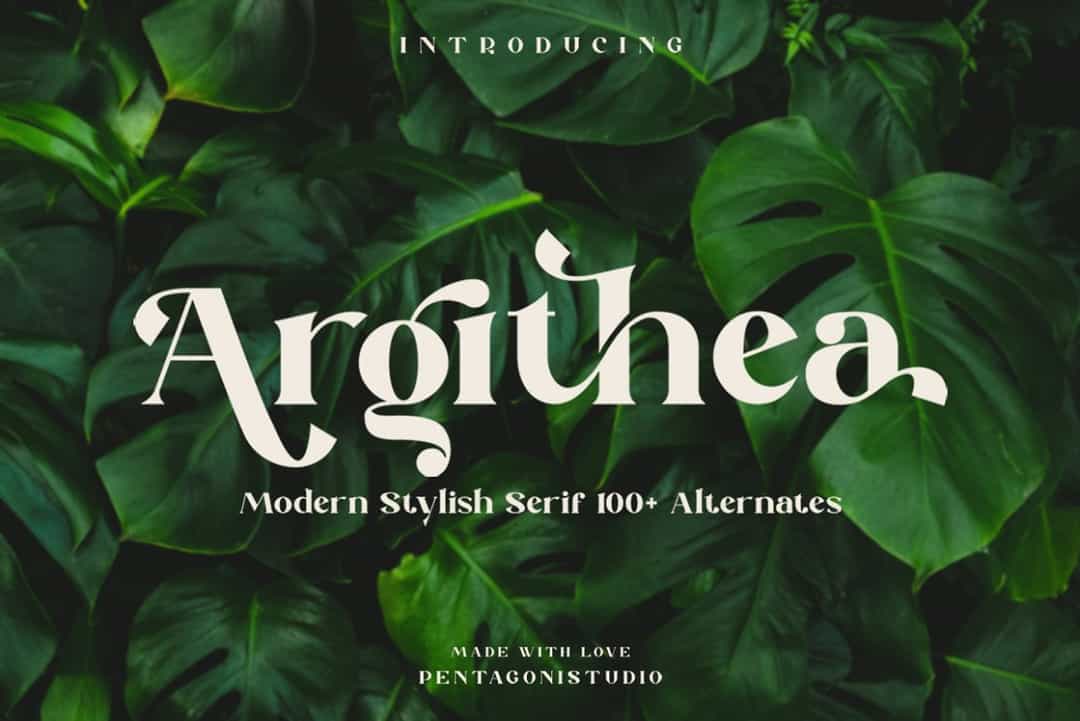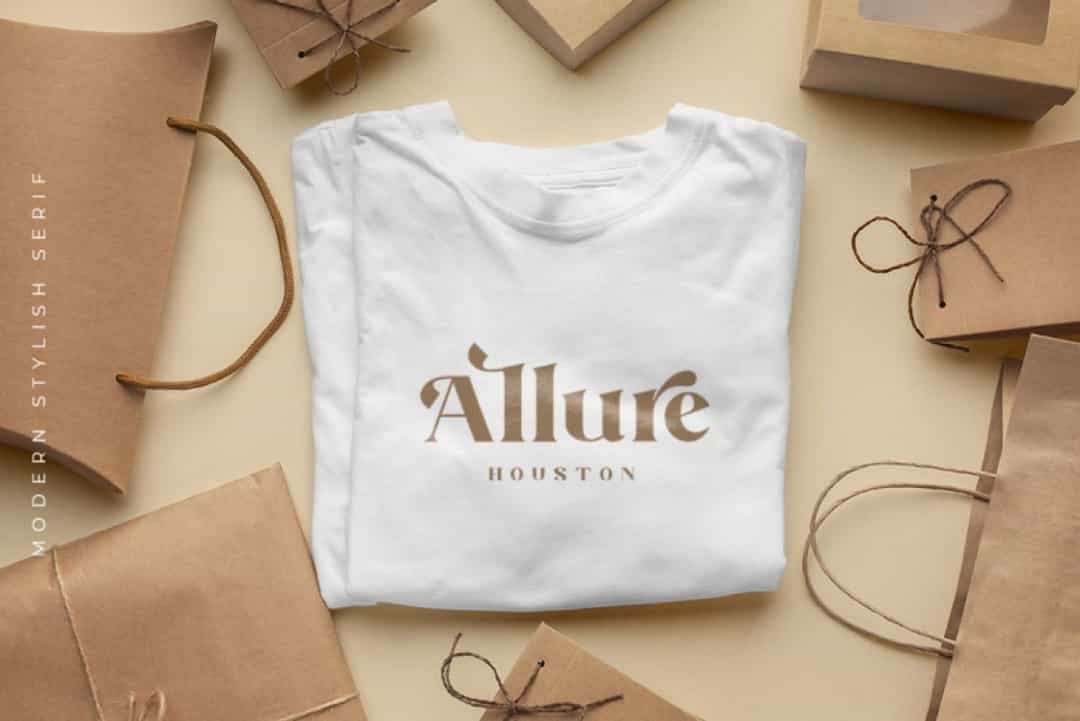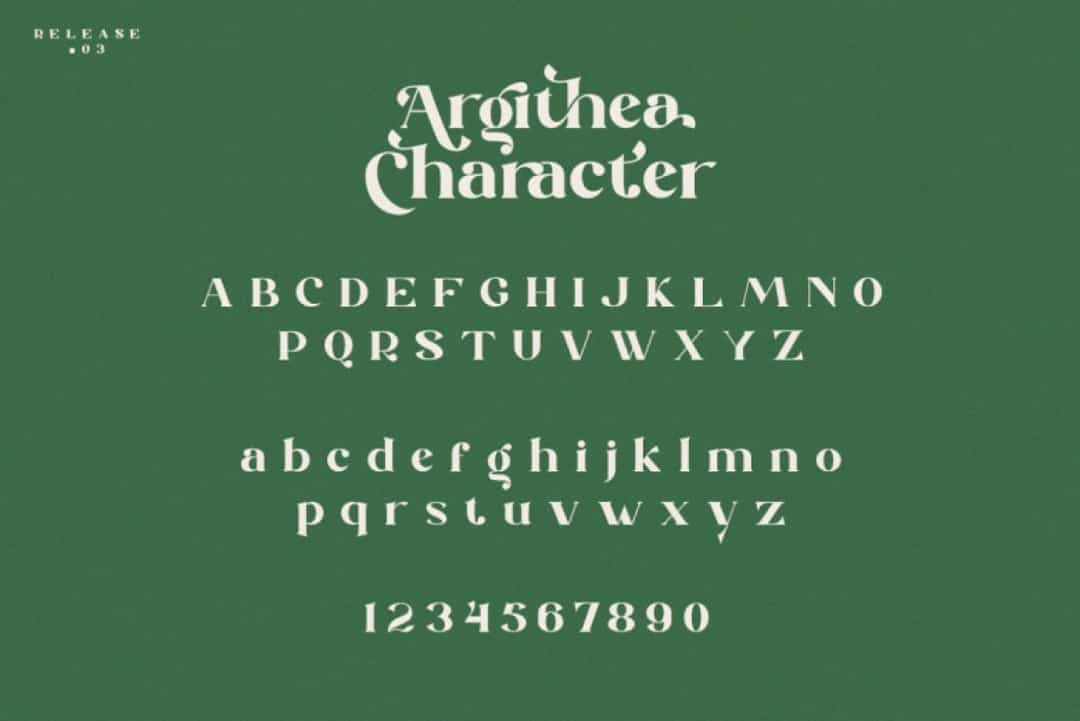
Argithea Serif Font is a modern stylish typeface Inspired By Bold Modern Stylish Serif and Vintage Curves. It would be a perfect choice to design posters, affiches, logos, t-shirt and magazine prints, eye-pleasing typographic designs and more.